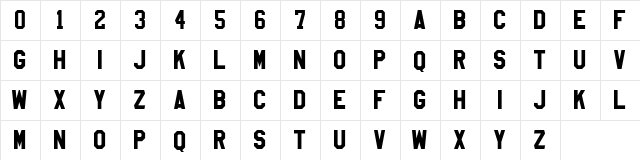
NHL Minnesota Alternate Regular
Design Context for NHL Minnesota Alternate Typeface
NHL Minnesota Alternate offers clean, dependable letterforms without strong stylistic allegiance, making it a practical choice for designers who need flexibility.